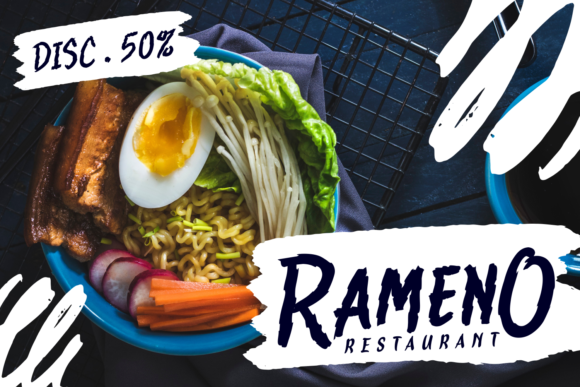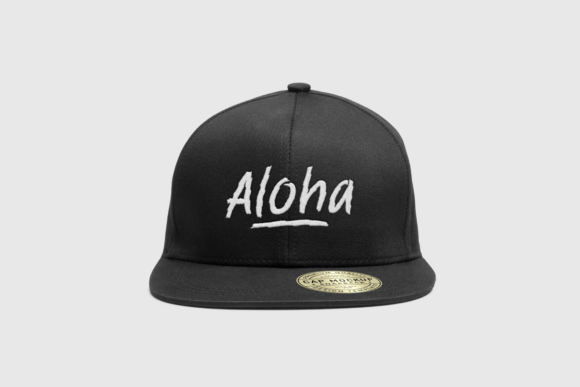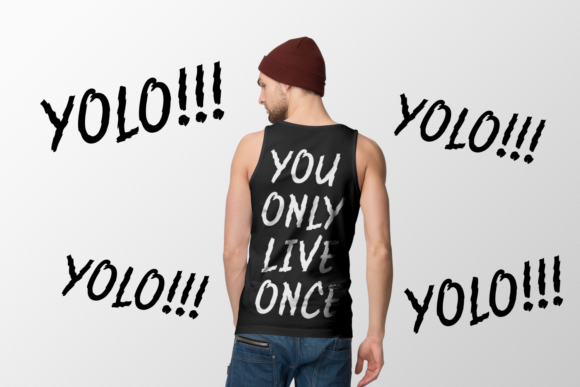
Introducing Clawster Font: The Ultimate Script Font for Creative Designs
Are you a designer or crafter looking for a unique script font to elevate your creative projects? Look no further than Clawster Font, a one-of-a-kind script font that is sure to make a statement. With its raw letters and great readability, Clawster Font is the perfect addition to your design toolkit.
The Unique Features of Clawster Font
The Clawster Font is an unique script font that boasts a distinctive style that sets it apart from other fonts. Its raw letters have a great readability, making it easy to use in a variety of design applications. Whether you’re creating a logo, brochure, or social media graphic, Clawster Font is sure to add a striking touch to your designs.
What Makes Clawster Font So Special?
So, what makes Clawster Font so special? Here are just a few reasons why designers and crafters are falling in love with this unique script font:
- Unique Style: Clawster Font has a distinctive style that is both modern and elegant. Its raw letters have a hand-crafted feel that adds a personal touch to any design.
- Great Readability: Despite its unique style, Clawster Font has great readability, making it easy to use in a variety of design applications.
- Versatility: Clawster Font is a versatile font that can be used in a variety of design projects, from logos and brochures to social media graphics and more.
How to Use Clawster Font in Your Designs
Using Clawster Font in your designs is easy. Here are a few tips to get you started:
- Pair it with Other Fonts: Clawster Font pairs well with other fonts, making it easy to create visually appealing designs. Try pairing it with a bold sans-serif font for a striking contrast.
- Use it for Headlines: Clawster Font is perfect for headlines and titles, where its unique style can really shine.
- Add it to Your Brand Identity: If you’re looking to create a unique brand identity, Clawster Font is a great choice. Its distinctive style can help set your brand apart from the competition.
The Benefits of Using Clawster Font
There are many benefits to using Clawster Font in your designs. Here are just a few:
- Stand Out from the Crowd: With Clawster Font, you can create designs that stand out from the crowd. Its unique style is sure to grab attention and leave a lasting impression.
- Save Time: Clawster Font is easy to use, which means you can save time and focus on other aspects of your design.
- Elevate Your Brand: If you’re looking to elevate your brand, Clawster Font is a great choice. Its distinctive style can help create a unique brand identity that sets you apart from the competition.
In conclusion, Clawster Font is a unique script font that is sure to add a striking touch to your designs. With its raw letters and great readability, it’s the perfect addition to your design toolkit. Whether you’re a designer or crafter, Clawster Font is a great choice for anyone looking to create visually appealing designs that stand out from the crowd.